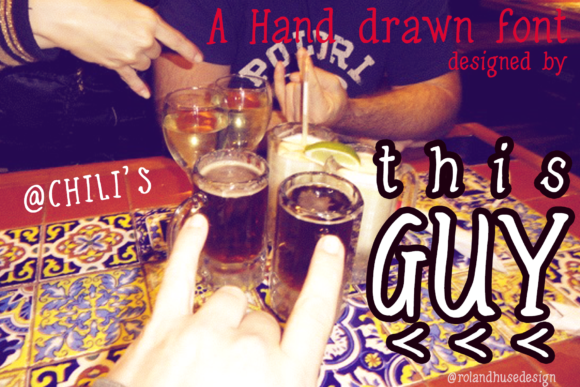
The Ultimate Guide to Chicken Fried Steak Font: A Fun and Cartoonish Delight
I’ll never forget the design project that led me to discover the Chicken Fried Steak font. I was working on a menu for a small café that served Southern-style comfort food, and I was struggling to find the perfect font that captured the playful, down-home vibe of their brand. That’s when I stumbled upon Chicken Fried Steak, a hand-drawn font that instantly transported me to the warm, fuzzy feeling of a Chili’s restaurant on a Sunday afternoon.
So, what makes Chicken Fried Steak font so special? Here are a few things that I absolutely adore:
- ✨ Playful and cartoonish vibe: This font is perfect for designs that need a dash of whimsy and fun.
- ✅ Easily legible: Despite its playful nature, Chicken Fried Steak is surprisingly easy to read, even at smaller font sizes.
- 💕 Versatile: This font is suitable for a wide range of design projects, from menus and signage to social media graphics and more.
Of course, no font is perfect, and Chicken Fried Steak has a few minor quirks to keep in mind:
- 🤔 Limited suitability for formal designs: This font is clearly designed for informal, playful projects, so it may not be the best choice for more formal or corporate designs.
- ⚠️ Some glyphs may require manual adjustment: Depending on the design, you may need to manually adjust certain glyphs to ensure they fit together seamlessly.
The Story Behind Chicken Fried Steak Font
According to its creators, Chicken Fried Steak font was inspired by the classic Southern comfort food served at Chili’s restaurants. The font’s playful, hand-drawn design is meant to evoke the warmth and hospitality of a home-cooked meal.
| Font Name | Chicken Fried Steak Font |
| Author | Roland Hüse Design |
| What type of designs is Chicken Fried Steak font best suited for? | Chicken Fried Steak font is perfect for informal designs like menus, signage, social media graphics, and more. |
| Is Chicken Fried Steak font easy to read? | Yes, despite its playful nature, Chicken Fried Steak font is surprisingly easy to read, even at smaller font sizes. |
| Does Chicken Fried Steak font support OpenType features? | Yes, Chicken Fried Steak font supports OpenType features like ligatures and stylistic alternates, which can add visual interest to your designs. |